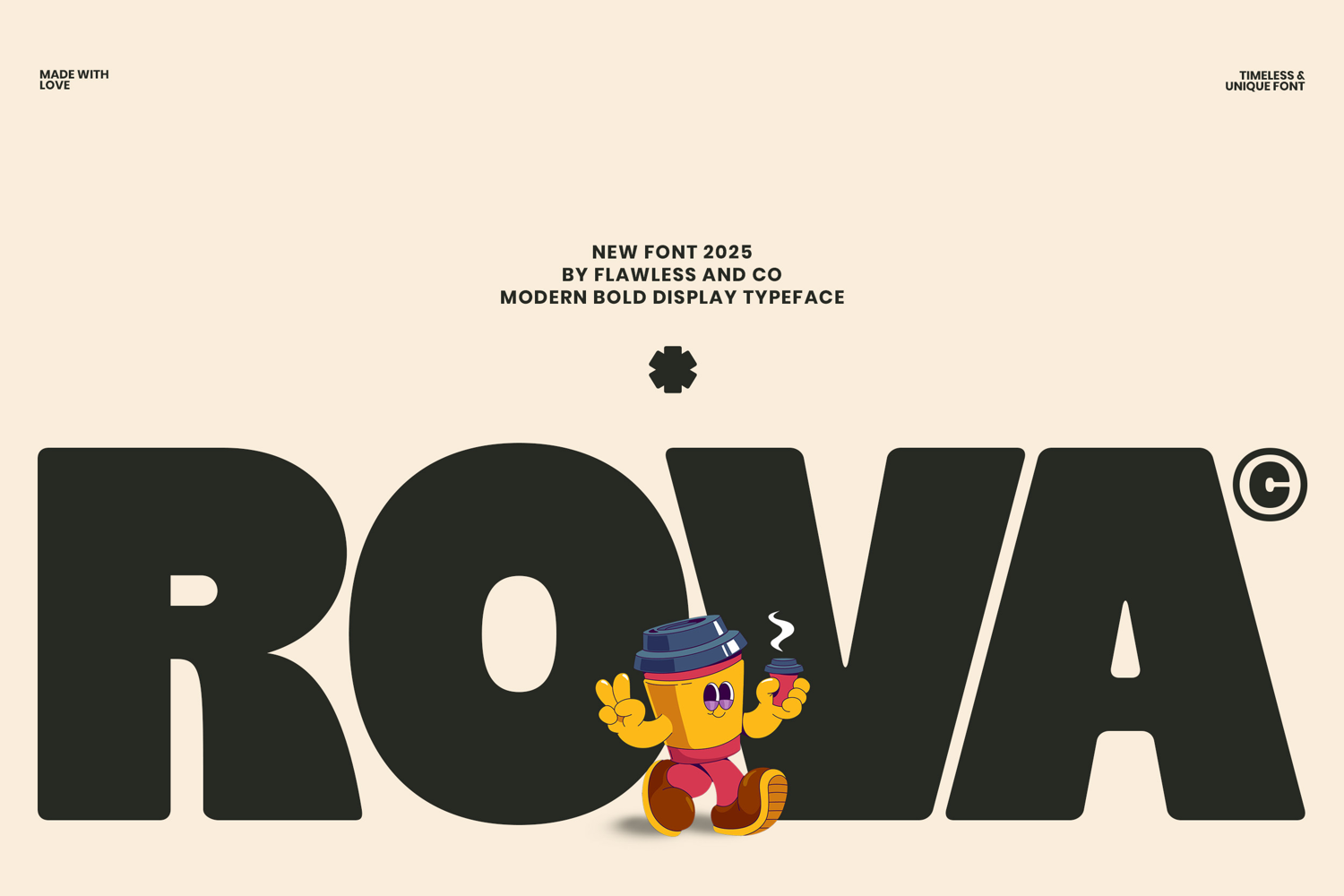
Rova
ROVA
Rova – Modern Bold Display Typeface
Introducing Rova, a modern bold display font that radiates strength, confidence, and simplicity. Designed with clean geometric shapes and powerful curves, Rova delivers a timeless aesthetic that stands out in any visual composition. Every letterform in Rova is crafted to command attention — making it the perfect choice for logos, headlines, and impactful branding projects. The strong and balanced proportions create a sense of modern elegance while maintaining a bold and friendly personality.
Who Should Use Rova?
Rova is perfect for designers, brands, and creatives who want to make a bold, modern statement in their visual work. Whether you’re crafting a sleek logo or designing packaging that pops, Rova’s confident letterforms help your designs feel strong, stylish, and memorable.
This font is ideal for:
• Brand designers looking for a bold and timeless display typeface.
• Creative studios that want to build strong visual identities.
• Marketing teams aiming to create eye-catching campaigns.
• Packaging designers who need a standout, modern font.
• Web and UI designers seeking a striking headline font.
• Poster and print designers who love bold typographic layouts.
A Must-Have Font for "Brand and Logo" Creators and Designers
Rova is a powerful bold display font that instantly commands attention. Designed with clean curves and modern proportions, it delivers a perfect balance between strength and style, making it ideal for any brand or logo that needs to stand out. Whether you’re crafting a contemporary brand identity, building a vibrant packaging design, or creating bold marketing visuals, Rova ensures your typography looks confident and unforgettable.
Why Choose Rova for "Brand and Logo" Projects?
Bold and Eye-Catching: Rova’s thick, confident letterforms instantly draw attention, making your brand identity stand out effortlessly.
• Modern and Clean: Designed with smooth curves and strong geometry for a fresh, contemporary look.
• Versatile Use: Works beautifully across print and digital — from packaging and posters to logos and social media.
• Timeless Appeal: Combines boldness with minimalism, ensuring your designs remain relevant and stylish over time.
• Perfect Readability: Despite its heavy weight, Rova maintains clarity and balance, ideal for impactful headlines and brand marks.
Suitable For:
• Logo and branding design
• Packaging and label design
• Poster and headline typography
• Merchandise and apparel design
• Social media graphics and marketing visuals
• Modern editorial layouts and covers
• Bold display typography for web and print
• Creative advertising and promotional materials